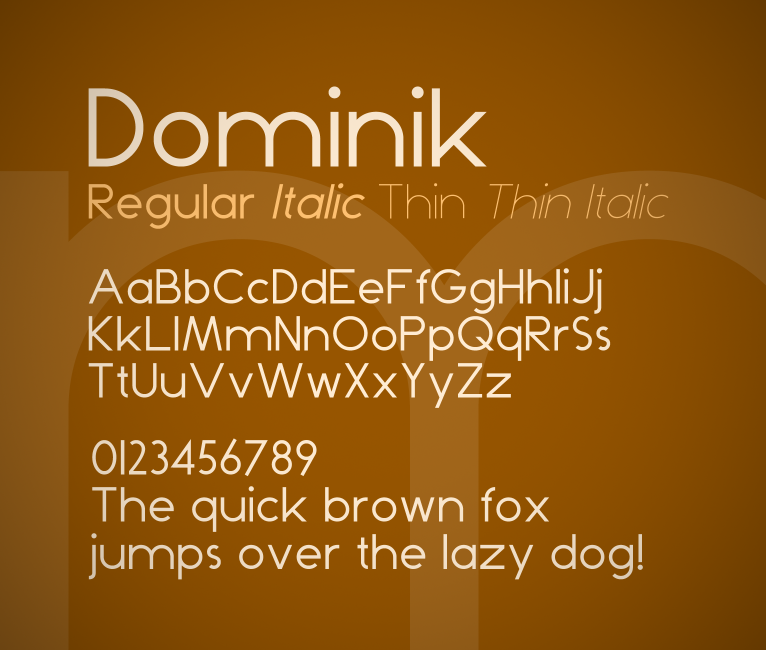
Preview and download Dominik Font. Created by Zdeněk Gromnica a.k.a. FutureMillennium in Basic Sans serif styles with Free for personal use license.
Free for non-commercial use only. To purchase a commercial license, please go to http://futuremillennium.com/fonts/license/dominik or contact me. A geometric sans serif face. Comes in Regular, Italic, Thin and Thin Italic. Update 2012/7/11, version 1.10: Fixed lower case 'e', added Italic, Thin and Thin Italic versions. If this font lacks symbols that you need or you spot a strange looking kerning pair, please let me know! Licensed under the Creative Commons Attribution-NonCommercial-NoDerivs 3.0 Unported License (CC BY-NC-ND 3.0) |